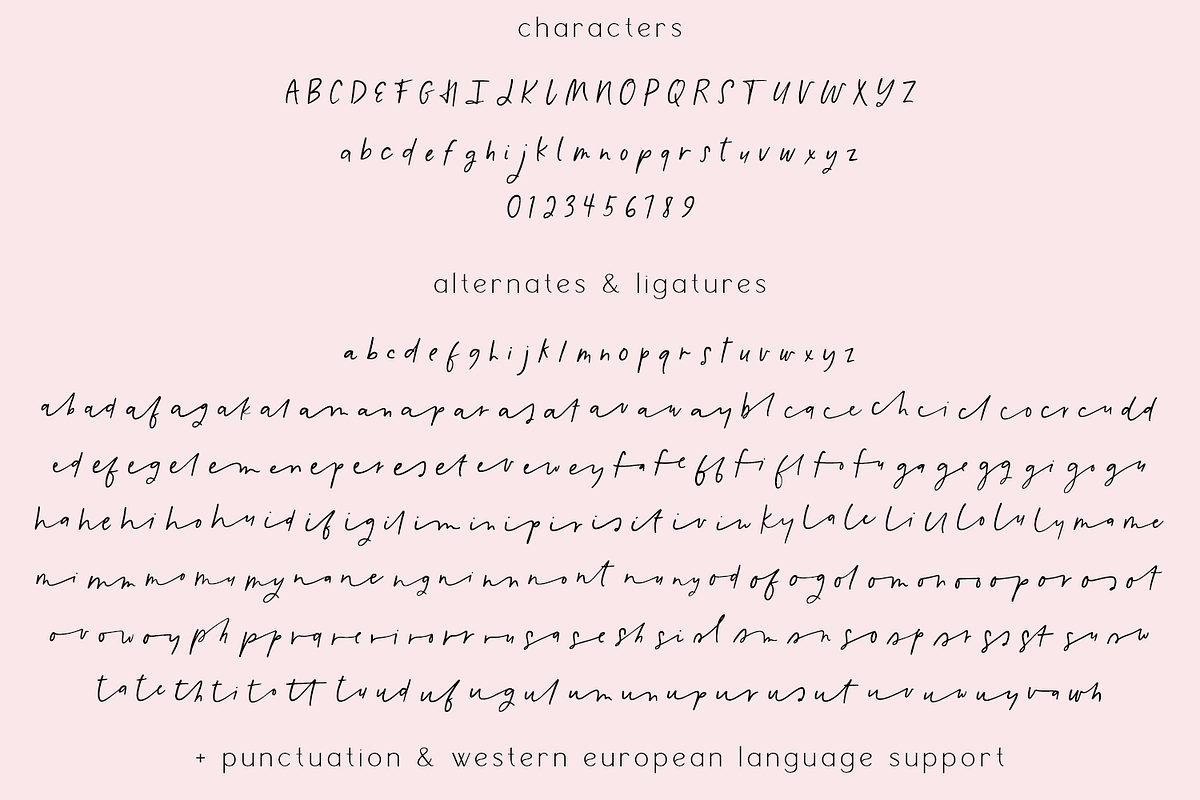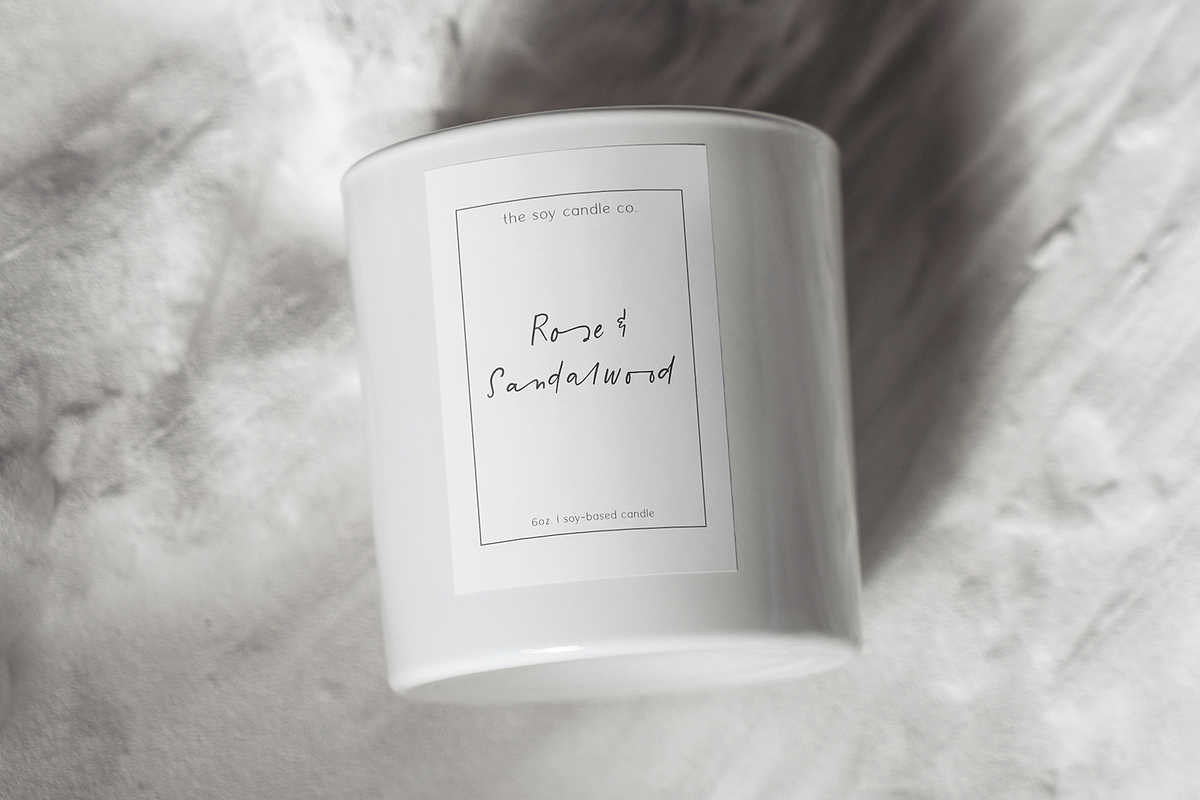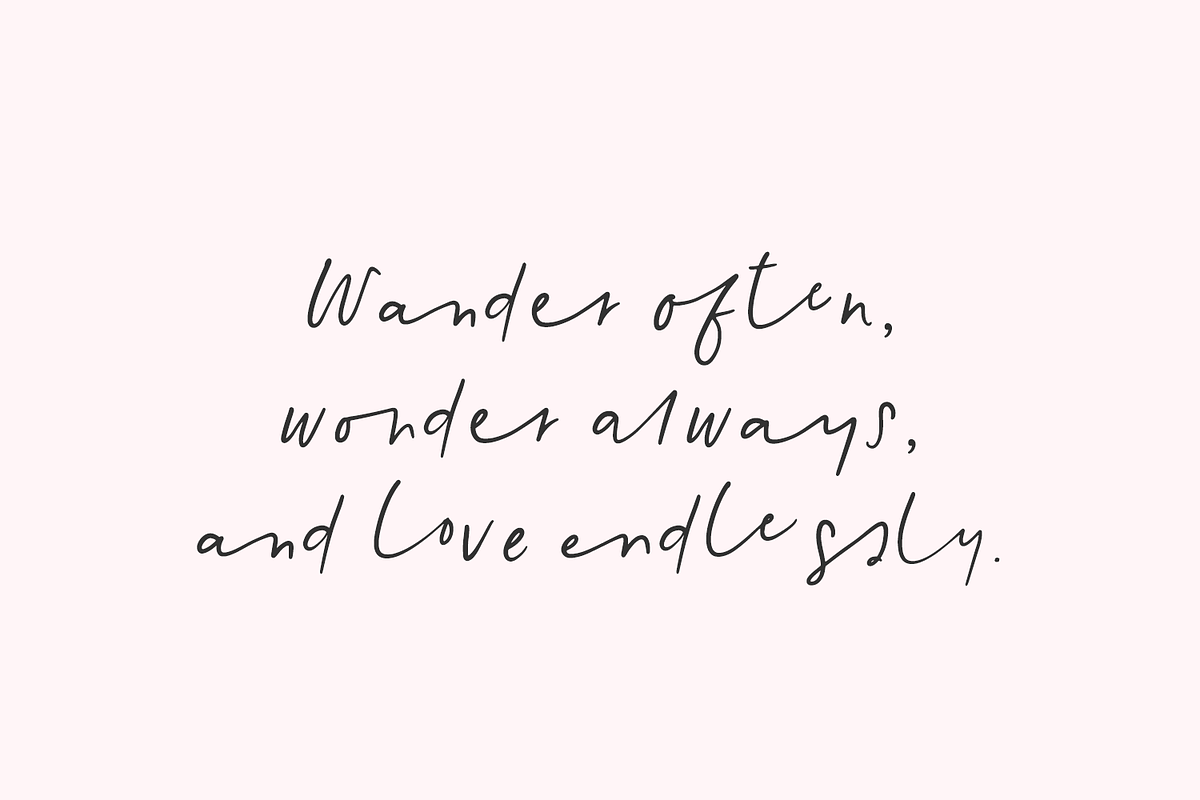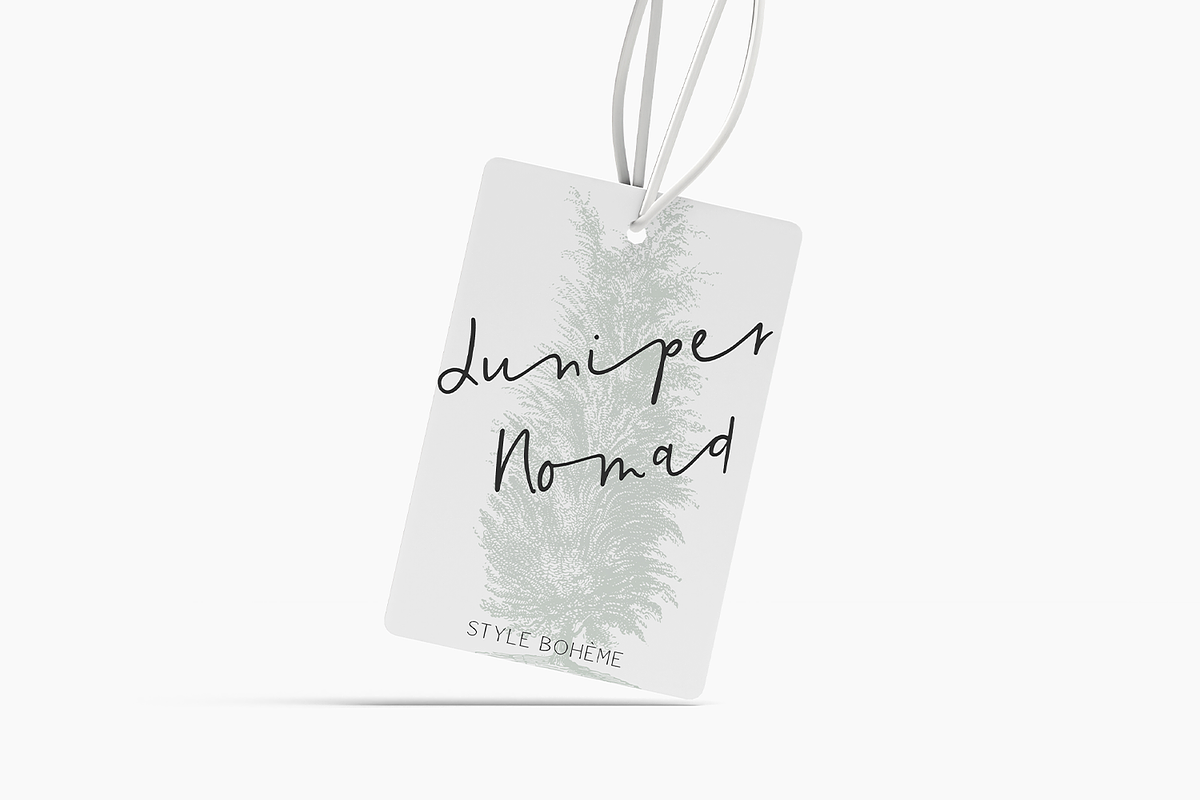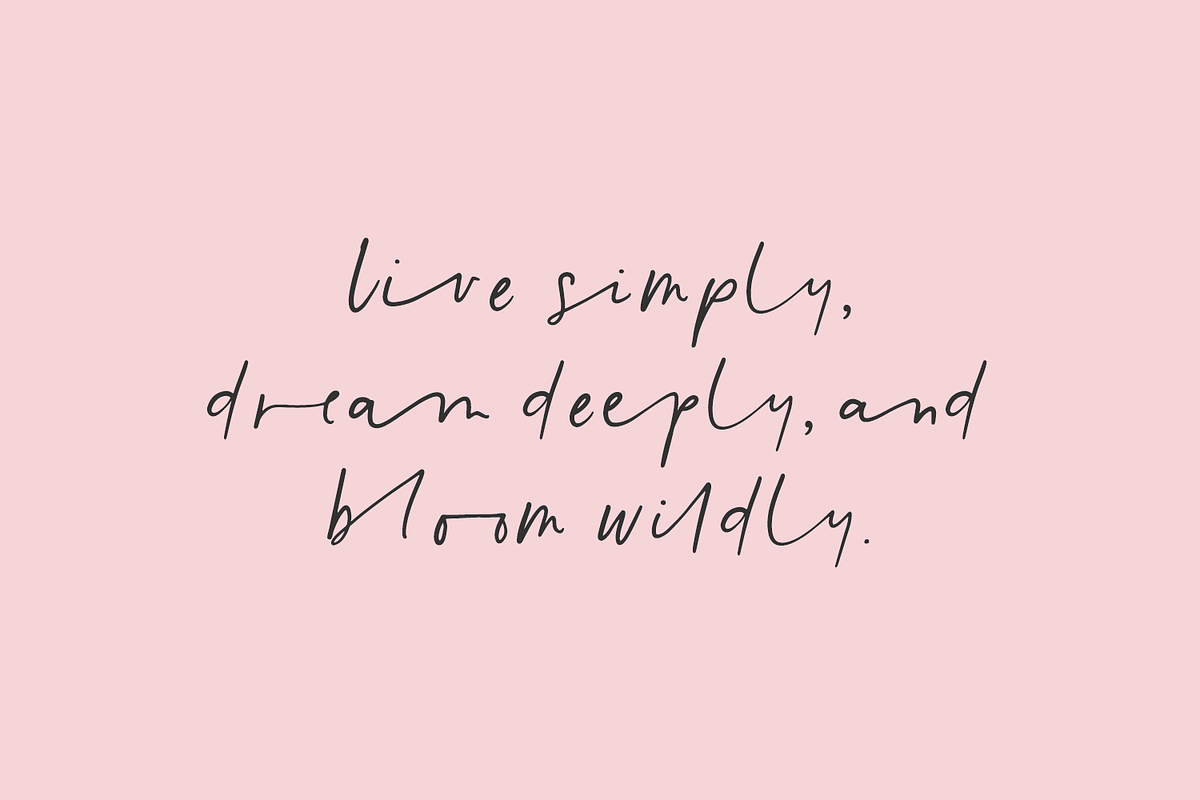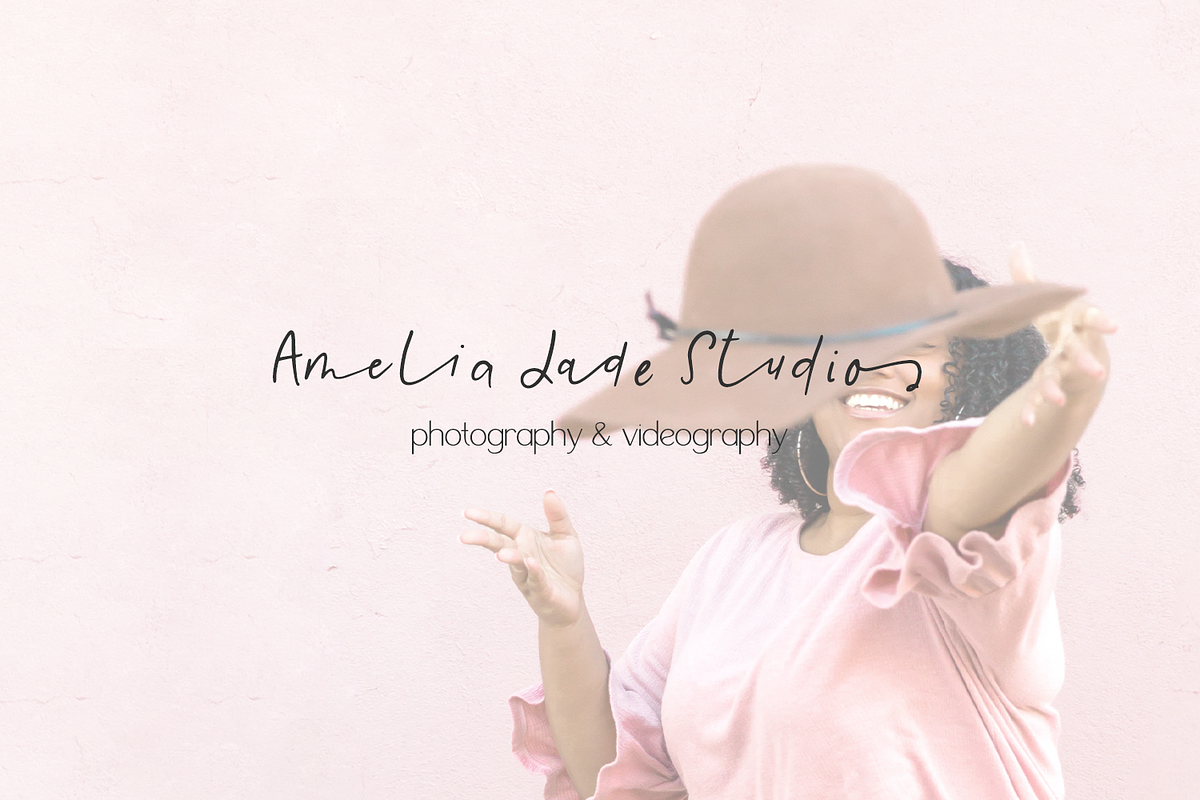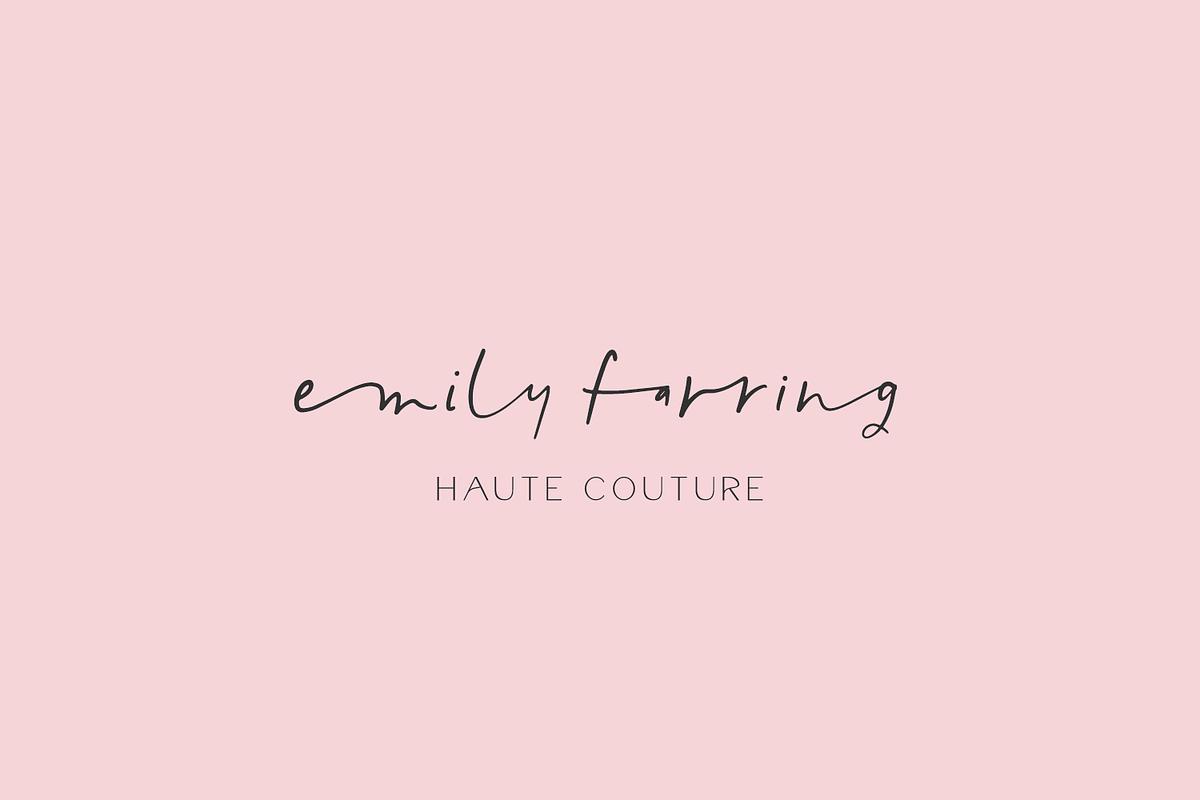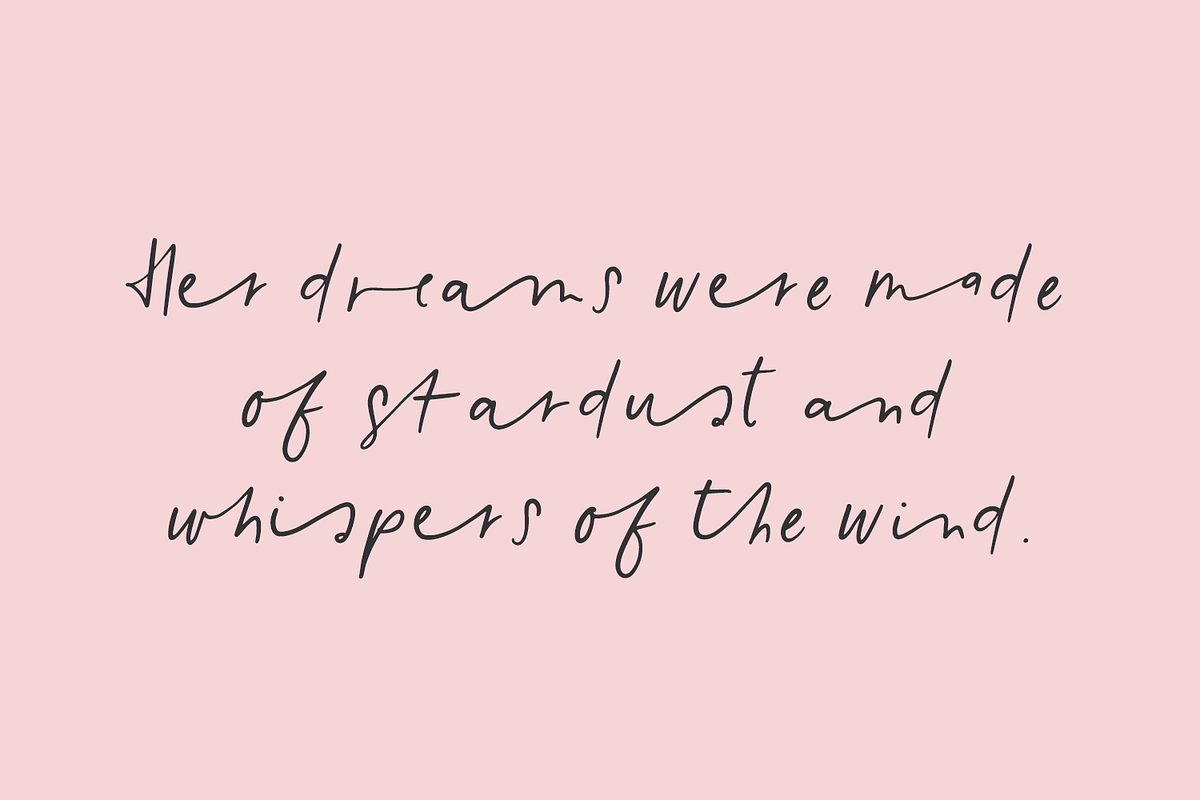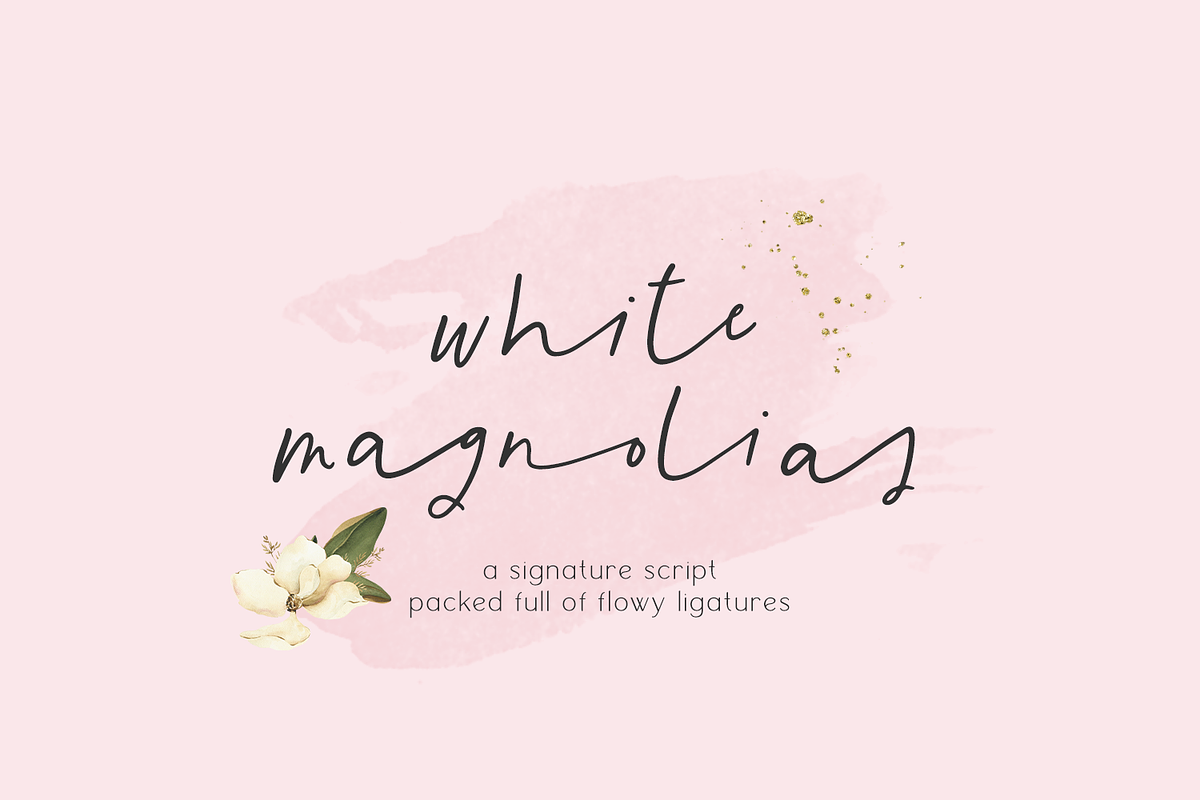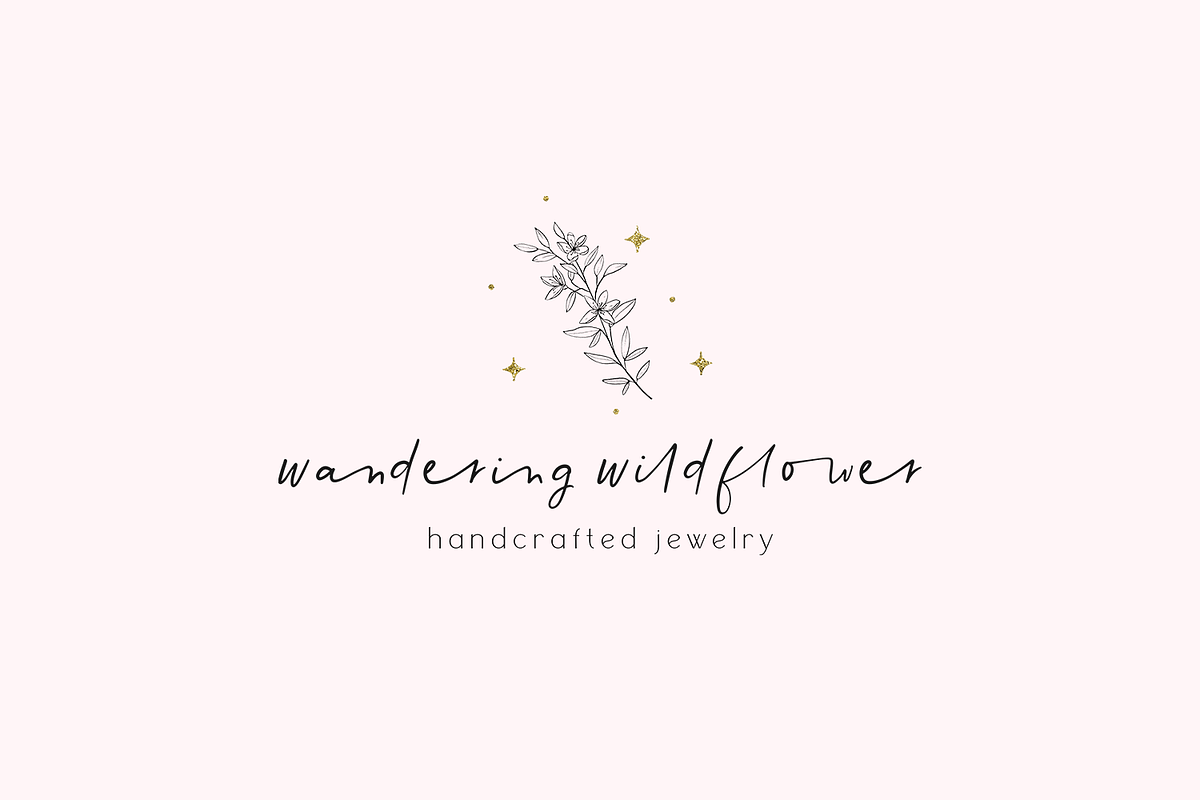
White Magnolias Script
White Magnolias Script is a loose cursive font, packed full of ligatures to customize the handwritten look & feel of your text. This font works best in professional design software with ligatures turned on. White Magnolias is perfect for bespoke logo & branding projects, print, marketing materials, website design, social media, greeting card & paper product design, & more.
White Magnolias Script includes:
- upper + lowercase characters A-Z and a-z
- numbers 0-9
- punctuation
- 26 lowercase alternates, a-z
- 150 ligatures - ab, ad, af, ag, ak, al, am, an, ap, ar, as, at, av, aw, ay, bl, ca, ce, ch, ci, cl, co, cr, cu, dd, ed, ef, eg, el, em, en, ep, er, es, et, ev, ew, ey, fa, fe, ff, fi, fl, fo, fu, ga, ge, gg, gi, go, gu, ha, he, hi, ho, hu, id, if, ig, il, im, in, ip, ir, is, it, iv, iw, ky, la, le, li, ll, lo, lu, ly, ma, me, mi, mm, mo, mu, my, na, ne, ng, ni, nn, no, nt, nu, ny, od, of, og, ol, om, on, oo, op, or, os, ot, ov, ow, oy, ph, pp, ra, re, ri, ro, rr, ru, sa, se, sh, si, sl, sm, sn, so, sp, sr, ss, st, su, sw, ta, te, th, ti, to, tt, tu, ud, uf, ug, ul, um, un, up, ur, us, ut, uv, uw, uy, va, wh
- Western European Language Support